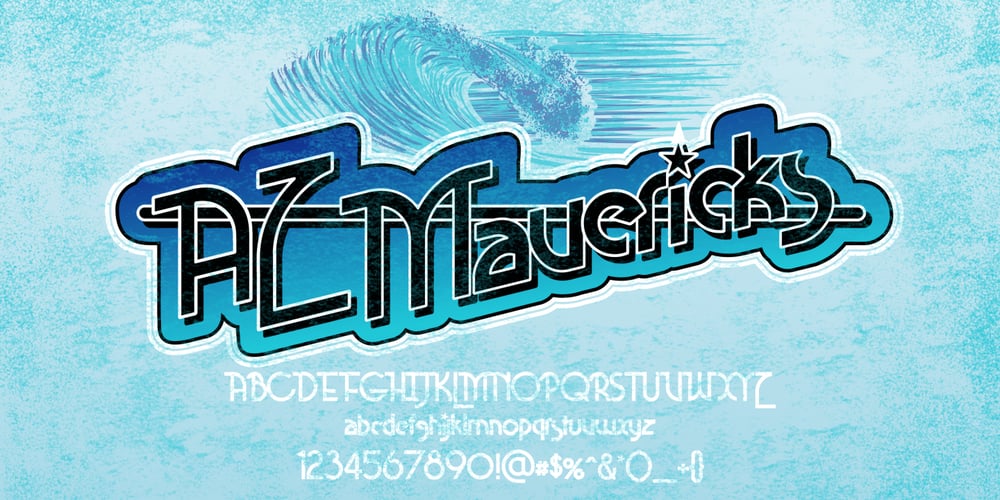
AZ Mavericks Font Family was designed by published by Artist of Design. AZ Mavericks contains 2 styles and family package options. AZ Mavericks was inspired from old Retro 70’s Skateboard logo’s. This font was designed for use as a fun bold headline. Preferably at an incline. This font comes with a “Tame” Capitol Letter version too.